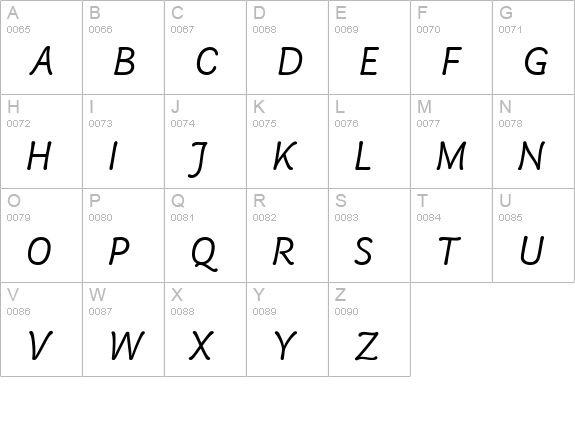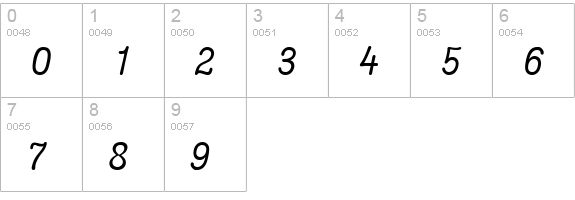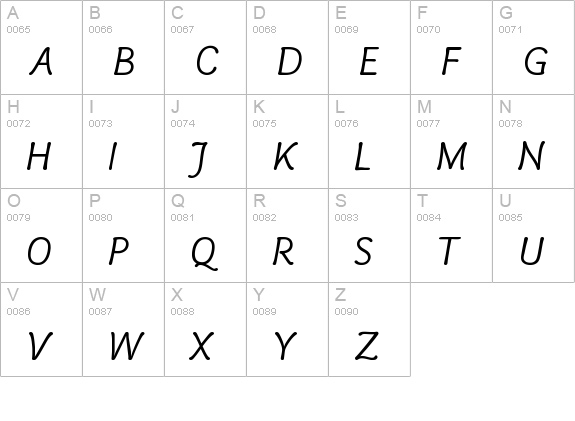
Poppl College (R) 1 Regular Font Details
Poppl College (R) 1 Regular is the standard, neutral variant in the Poppl typeface family \xE2\x80\x94 well suited to general body text, paragraphs, and standard typographic work.
Poppl College (R) 1 Regular font is a versatile and modern typeface that exudes professionalism and elegance. With its clean lines and classic design, this font is perfect for a wide range of projects, from branding to editorial design. Whether you're creating a sleek logo or designing a sophisticated layout, Poppl College (R) 1 Regular font will elevate your work to the next level. What's even better is that Poppl College (R) 1 Regular font is freely available to download at FontsMarket.com. This means you can easily access this high-quality font without any cost, making it a valuable addition to your font library. Don't miss out on this opportunity to enhance your designs with the timeless appeal of Poppl College (R) 1 Regular font. Download it today and see the difference it can make in your projects.